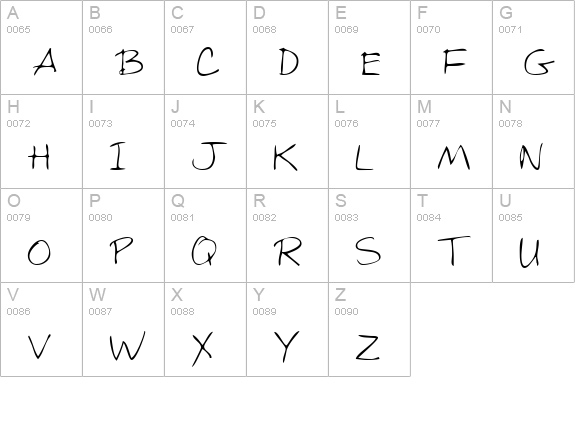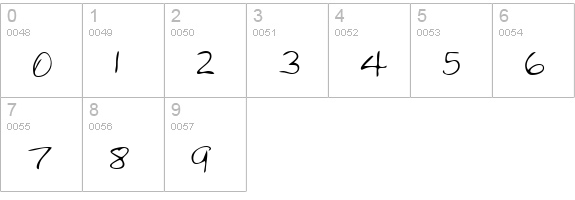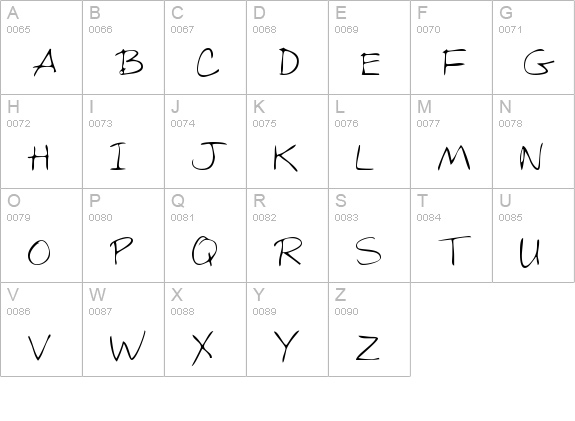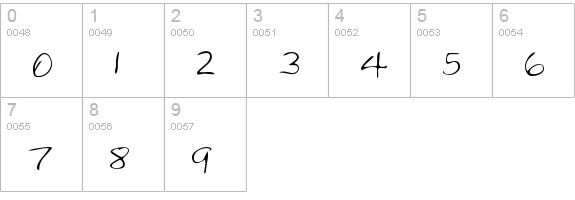
KylesHand Regular Font Details
KylesHand Regular is the standard, neutral variant in the KylesHand typeface family \xE2\x80\x94 well suited to general body text, paragraphs, and standard typographic work.
KylesHand Regular is a charming and versatile handwritten font that exudes a sense of warmth and friendliness. Its smooth and flowing strokes give it a casual yet elegant appearance, making it perfect for a wide range of design projects. Whether you're creating invitations, greeting cards, logos, or social media graphics, KylesHand Regular will add a personal touch to your work. What's even better is that KylesHand Regular is available for free download at FontsMarket.com. This means you can easily access this beautiful font and use it in your designs without any cost. Don't miss out on this opportunity to enhance your projects with the unique style of KylesHand Regular. Download it now and start creating stunning designs today!